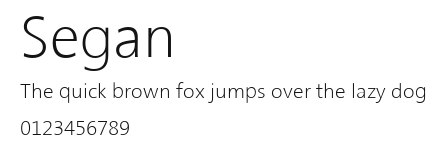
• Font Name: Segan
• Font Style: Light
• Full Font Name: Segan Light
• Designer: Rodney Rogers
About Segan.ttf
Segan.ttf is a modern, elegant sans-serif font designed for ultimate readability and visual harmony. Perfect for branding, headlines, web design, and print materials.